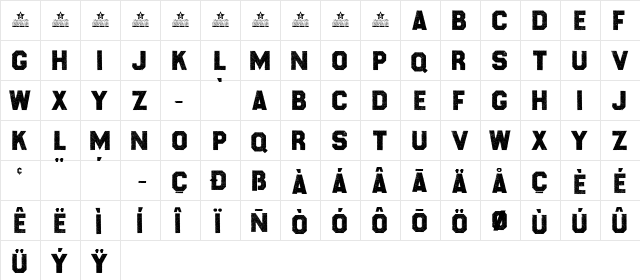
Farenheight Regular
| Foundry | Billy Argel |
Design Context for Farenheight Typeface
Farenheight takes a measured approach to typography — its balanced proportions and neutral character make it a reliable workhorse for both digital and print work.